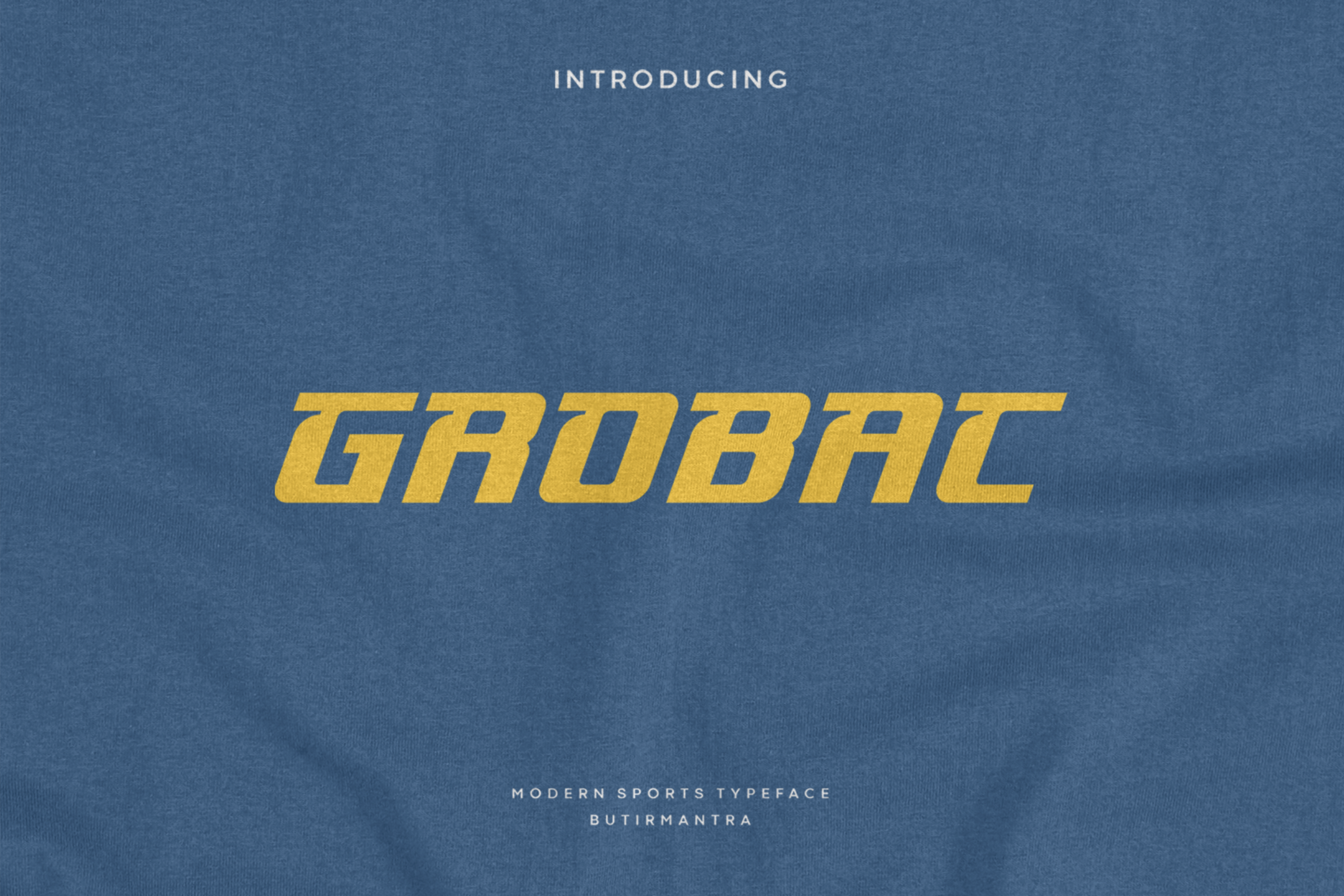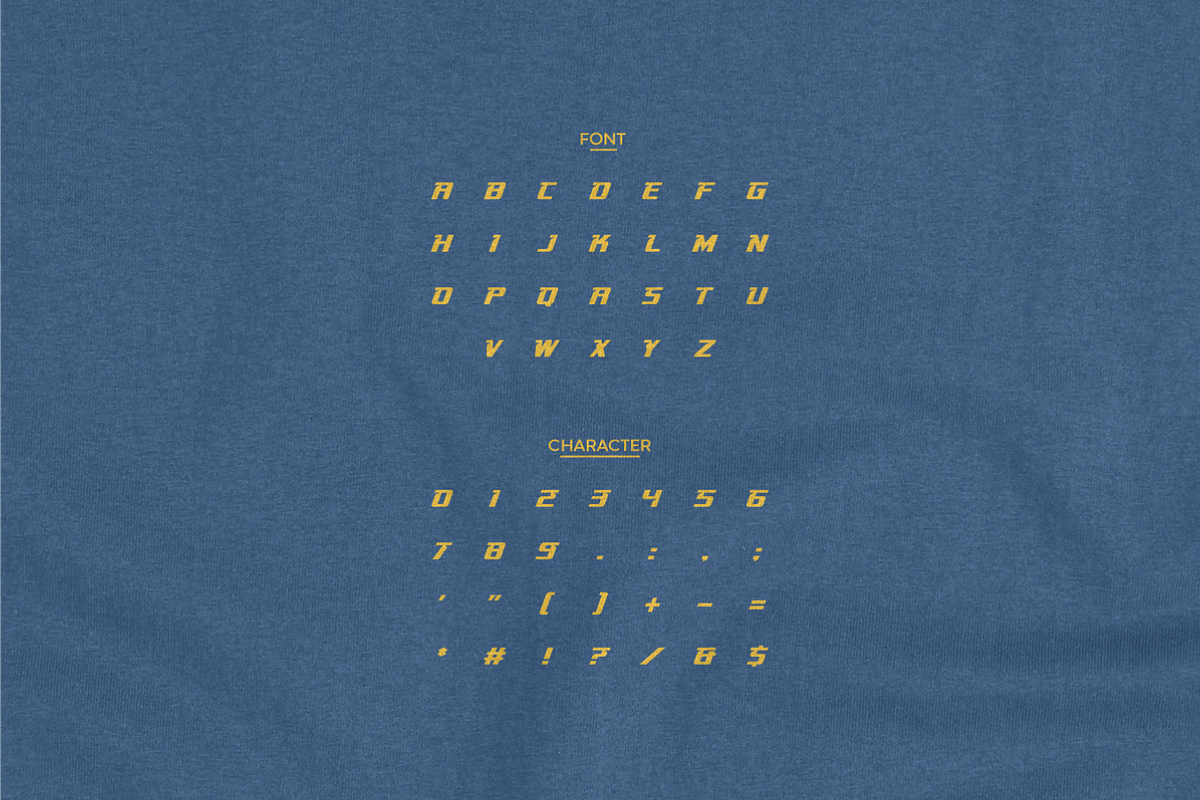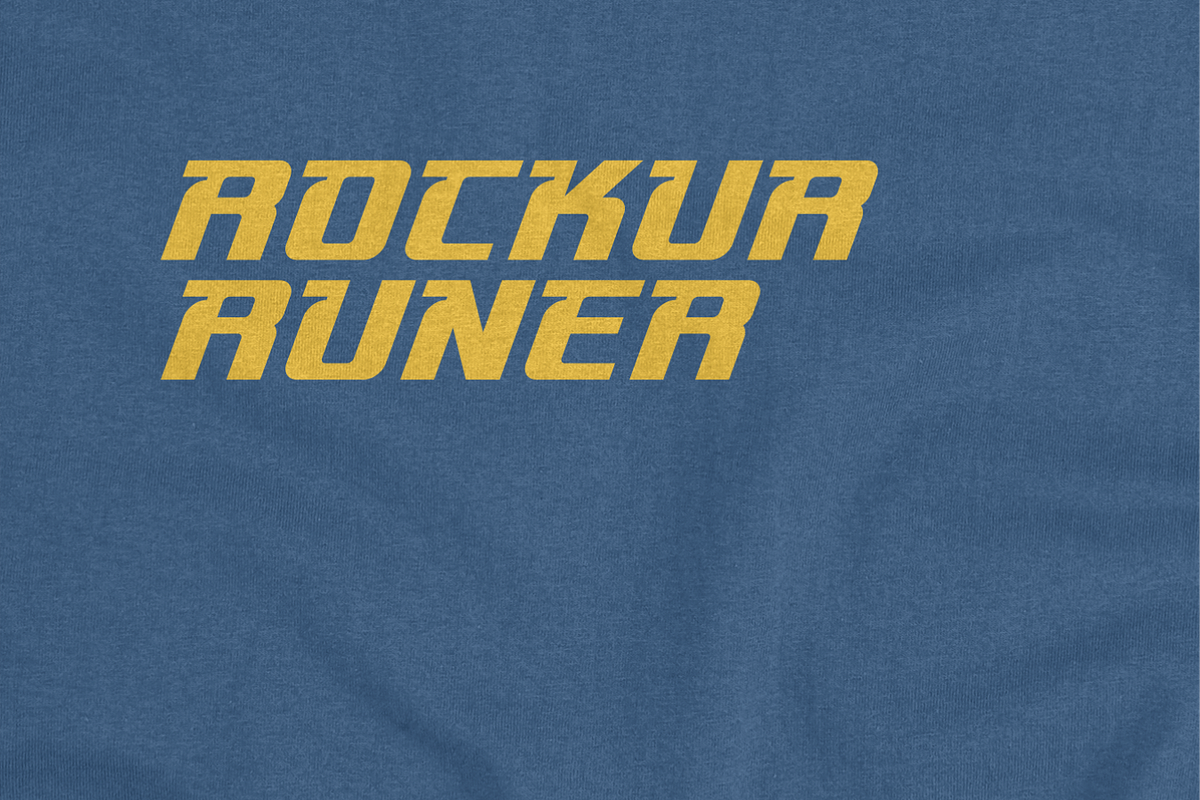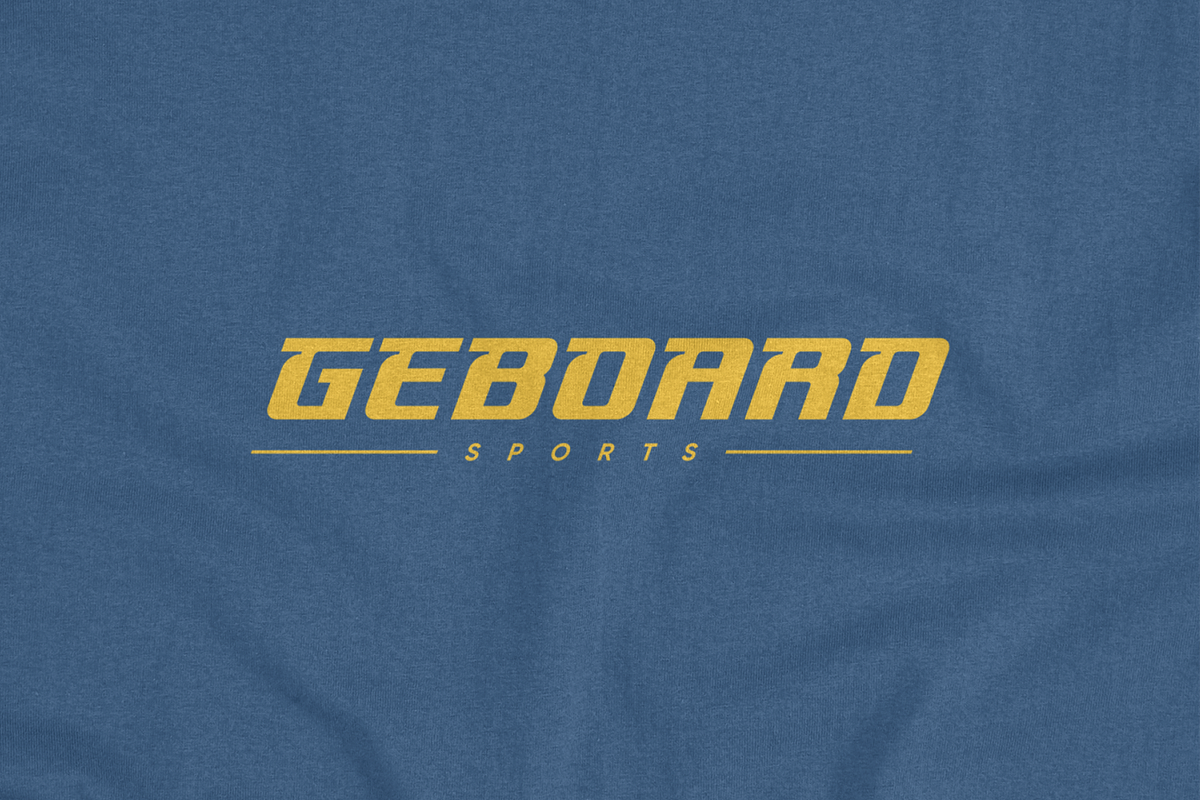
Grobac - Modern Sport Typeface
Grobac is a sports font that brings back old themes into a modern, dynamic, Its slanted shape makes this font look fast, futuristic and powerful. Grobac it would be good and more flexible for sports or adventure designs, even as a head, logo, poster would be great.
- Punctuation & Number